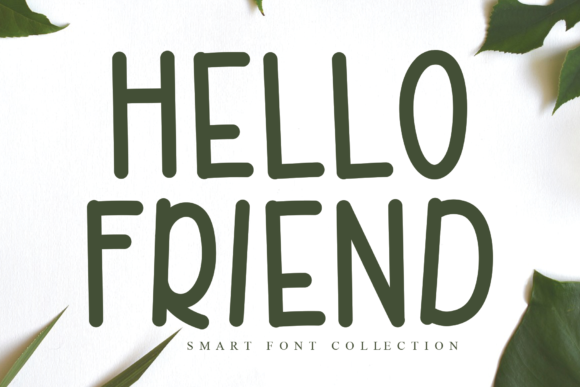
Unleash your creativity with Hello Friend Font, a whimsical and enchanting handwritten font that exudes warmth and charm. Inspired by the beauty of handwritten letters and the desire to evoke nostalgic sentiments, Hello Friend Font is a true masterpiece that will add a touch of personal charm to any project.
Immerse yourself in the world of Hello Friend Font, where each letter is carefully crafted to mimic the natural flow and rhythm of human handwriting. Every curve, every stroke, every detail is meticulously designed to create a font that feels both authentic and captivating.
With its inviting and friendly style, Hello Friend Font is a perfect choice for crafting personalized invitations, heartfelt letters, heartwarming greeting cards, and memorable quotes. Its versatility extends to branding and marketing materials, where it can add a touch of uniqueness to logos, posters, flyers, and social media graphics.
Imagine the impact of your travel brochure designed with Hello Friend Font. Its effortless elegance and charm will transport readers to a world of adventure and discovery. The font's ability to capture the essence of handwritten travelogues will make your brochure stand out from the crowd, ensuring that your readers are captivated from the very first page.
Hello Friend Font is not just a font; it's an experience. It's a journey into the realm of imagination and creativity, where the possibilities are endless. Embrace the magic of Hello Friend Font and watch your projects come to life with a touch of warmth, personality, and timeless beauty.